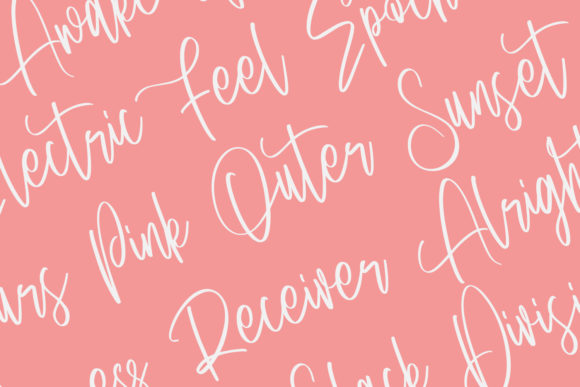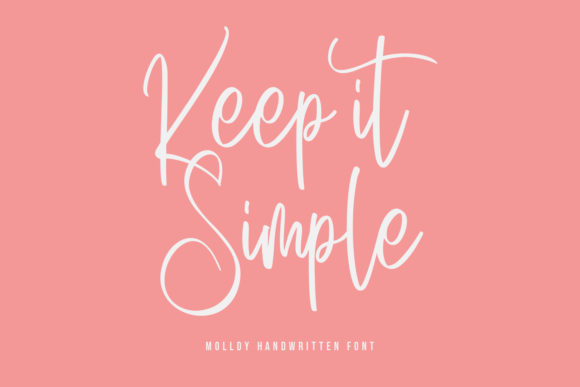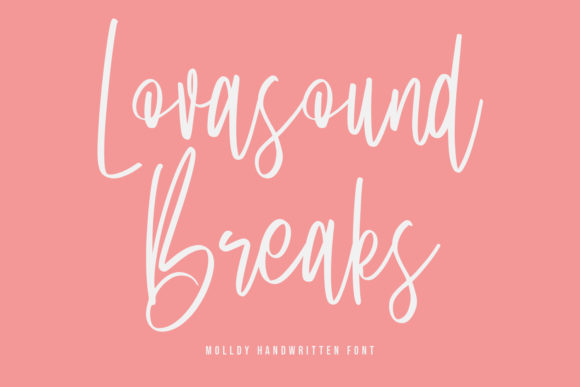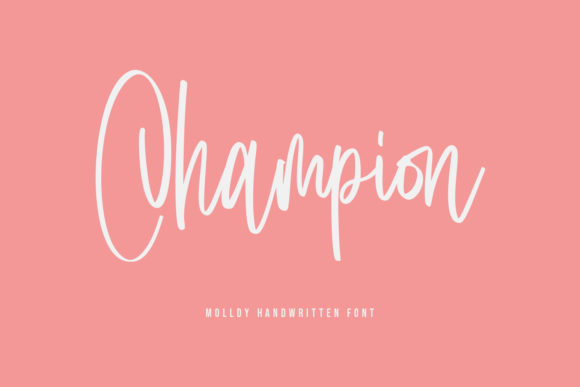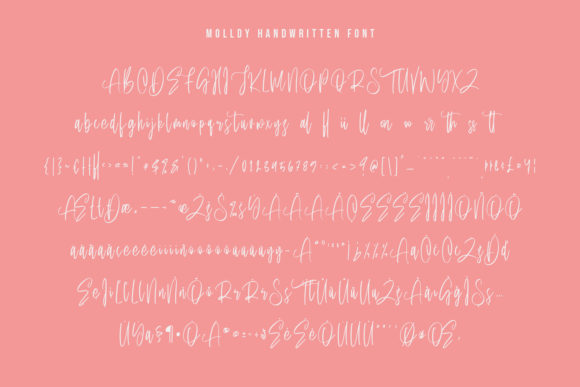
Introduction to Molldy Font Font
Fonts play a crucial role in design, and the Molldy Font font is a typeface that brings both character and versatility to any project. Whether you’re working on a branding project, a website, or a print design, the Molldy Font font offers a unique style that can elevate your work.
Molldy is a relaxed and incredibly distinct handwritten font.
Fall in love with its incredibly versatile style and use it to create gorgeous wedding invitations, beautiful stationary art, eye-catching social media posts, and much more .
Key Features of Molldy Font Font
Why Choose Molldy Font Font?
The Molldy Font font is more than just a typeface – it’s a design tool that helps you communicate your message with style and clarity. Its unique character set and versatile design make it suitable for a wide range of applications, from elegant invitations to bold headlines.
With its carefully crafted letterforms and balanced proportions, the Molldy Font font ensures readability and visual appeal across all mediums.
What makes Molldy Font font special?
The Molldy Font font stands out with its unique design, exceptional readability, and versatility across various design applications.